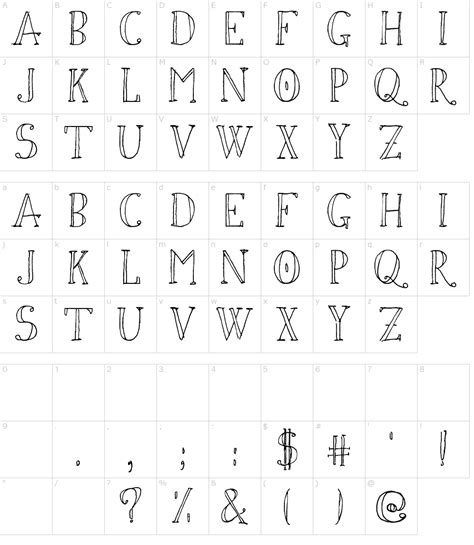
Pauls Fancy Script Font Download from fontmeme.com
Please wait, the tt polls script font is downloading. Some scripts are more formal like elegant calligraphy, while others are casual like cursive handwriting. Каллиграфические и скриптовые шрифты с кириллицей. Download 10,000 fonts with one click for $19.95. Script typefaces are based upon the varied and often fluid stroke created by handwriting, pretty much like the cursive fonts just typically more elegant.
Shorelines Script Font. 1001 Free Fonts offers a huge ... from i.pinimg.com
Typography is currently playing a central role in web design, with progressive improvements like variable fonts, css shapes, flexbox, css grids and subgrid definitively changing the way we work with typography in web design. Шрифт wild flower script cyrillic. Sign up and start building your font collection. 66 professional script select fonts to download. Latin script (free fonts) latin script (handwritten fonts) turkish fonts at fontlibrary. The quick brown fox jumps over the lazy dog. We have prepared an amazing collection of free script fonts for your business cards, flyers etc. Please wait, the tt polls script font is downloading.
Search results for 'select script' (free select script fonts).
Шрифт wild flower script cyrillic. You may use this font to display and print content as permitted by the license terms for the product in which this font is included. Download 10,000 fonts with one click for $19.95. In fact, you might find that there are so many choices that you don't know which ones to. Archive of freely downloadable fonts. Therefore, script fonts are truly handy tools when it comes to designing things like postcards, flyers, and wedding invitation cards. Latin script (free fonts) latin script (handwritten fonts) turkish fonts at fontlibrary. Script typefaces are based upon the varied and often fluid stroke created by handwriting, pretty much like the cursive fonts just typically more elegant. You can use these fonts to create custom styles. Sign up and start building your font collection. Script font is a broad style that refers to any typeface that looks like it was drawn by hand. Download and install the playlist script font free font on your device as well as see a complete character set & use for personal & professional use. Search results for 'select script' (free select script fonts).